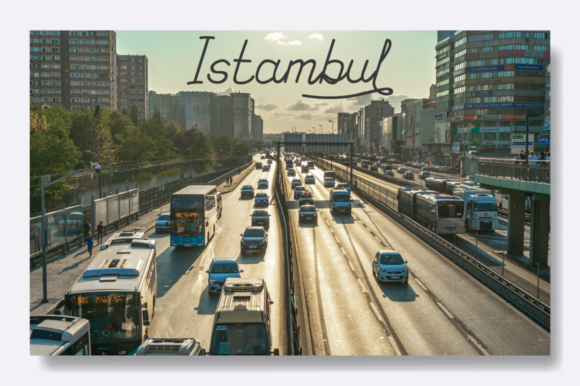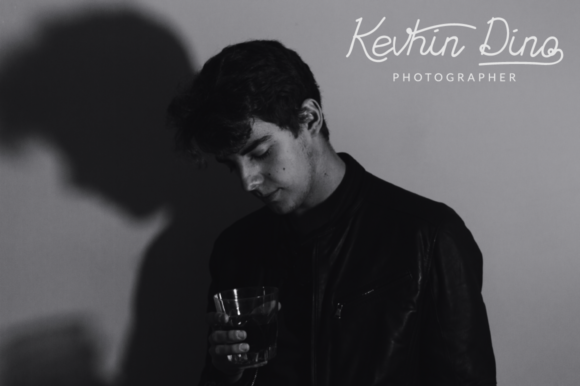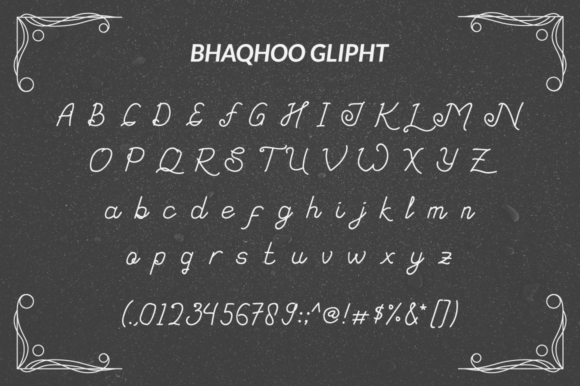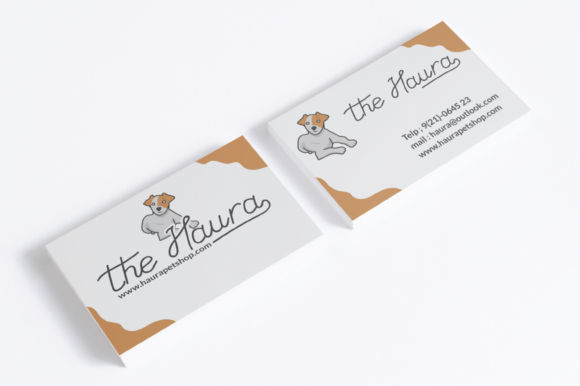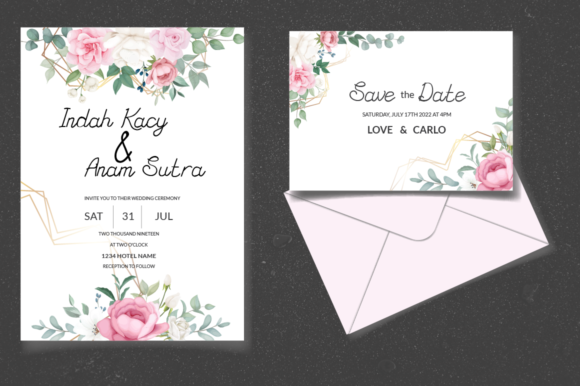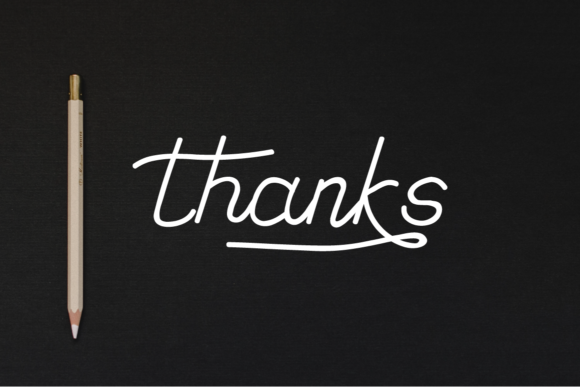
Discover the Timeless Charm of Bhaqhoo Font
Have you ever stumbled upon a design that sparks pure creativity and transports you to a world of endless possibilities? That’s exactly what happened to me when I first laid eyes on the Bhaqhoo Font. Its elegant touch and flowing handwritten style immediately captured my heart, and I knew I had to share it with fellow designers.
Bhaqhoo Font is more than just a font – it’s a perfect blend of sophistication and playfulness, making it an ideal choice for a wide range of projects. Whether you’re a seasoned designer or just starting out, this font is sure to elevate your designs and leave a lasting impression. With its unique and timeless style, Bhaqhoo Font is a valuable addition to any designer’s toolkit, allowing you to create spectacular designs that truly stand out.
Bhaqhoo Font Key Features
- Unique Characteristics: The Bhaqhoo font features a unique blend of traditional and modern design elements, with intricate details and subtle flourishes that add a touch of elegance to any text
Bhaqhoo Font Review
First off, let me say that the Bhaqhoo font is quite the unique find. Its quirky design elements and expressive letterforms make it a standout in any digital project. ✨ I love how the font’s irregularities give it a hand-drawn feel, which is perfect for projects that need a bit of personality.
The font’s versatility is another major plus. It’s suitable for use in both body text and headings, and its varied weights and styles make it easy to create a cohesive visual identity. ✨ Whether you’re designing a website, social media campaign, or marketing materials, Bhaqhoo is a great choice.
That being said, there are a few limitations to consider. ⚠️ For one, the font may be a bit too playful for certain types of projects. If you’re designing something that requires a more serious or professional tone, you may want to look elsewhere. Additionally, the font’s irregularities can sometimes make it difficult to read at smaller font sizes.
Overall, I think the Bhaqhoo font is a solid choice for designers looking to add some personality to their projects. While it may have its limitations, its unique design elements and versatility make it a great option for those who want to stand out from the crowd.
- Unique, hand-drawn feel
- Versatile for use in body text and headings
- Varied weights and styles
- Perfect for adding personality to digital projects
Bhaqhoo Font is ideal for:
- Creating unique and eye-catching designs.
- Adding a touch of elegance to your text.
- Designing branding materials, such as logos and business cards.